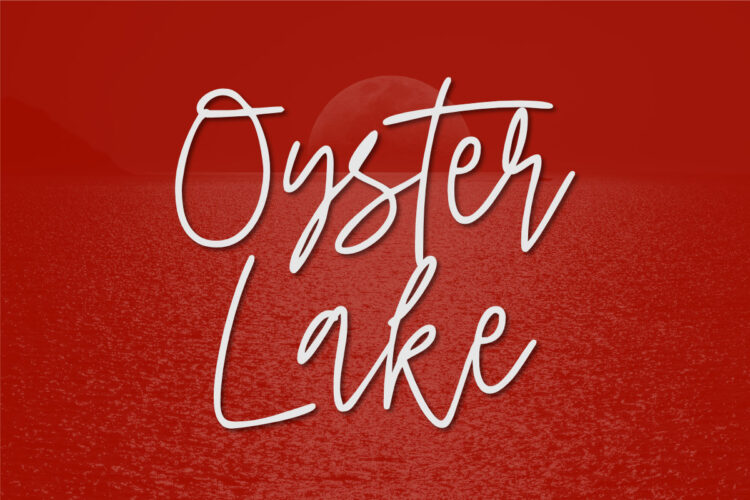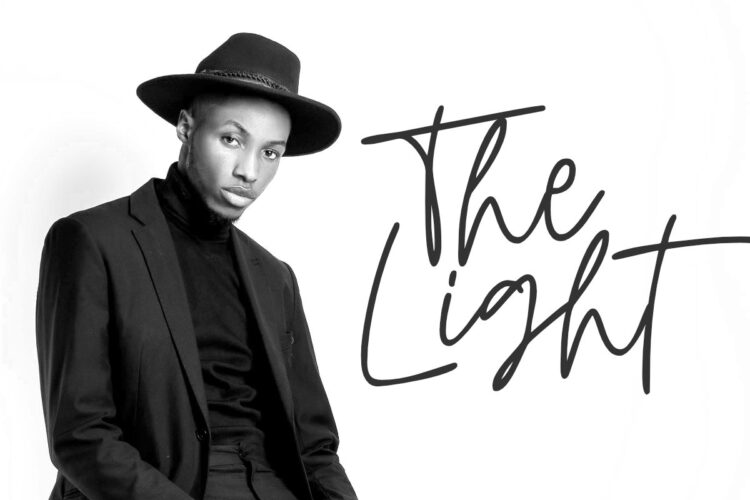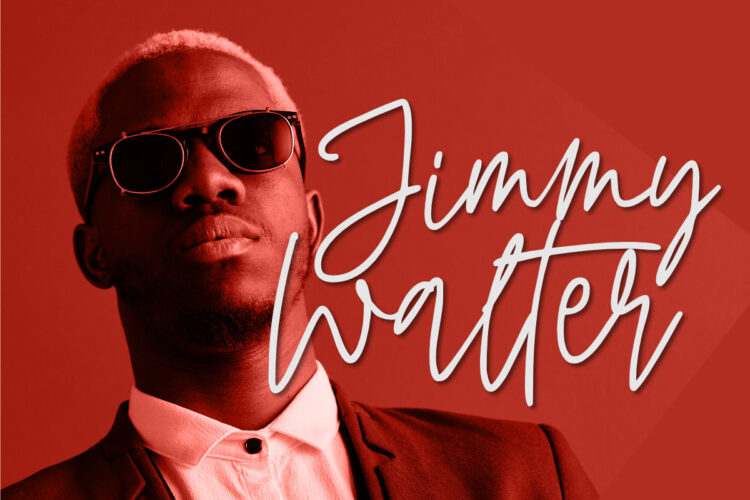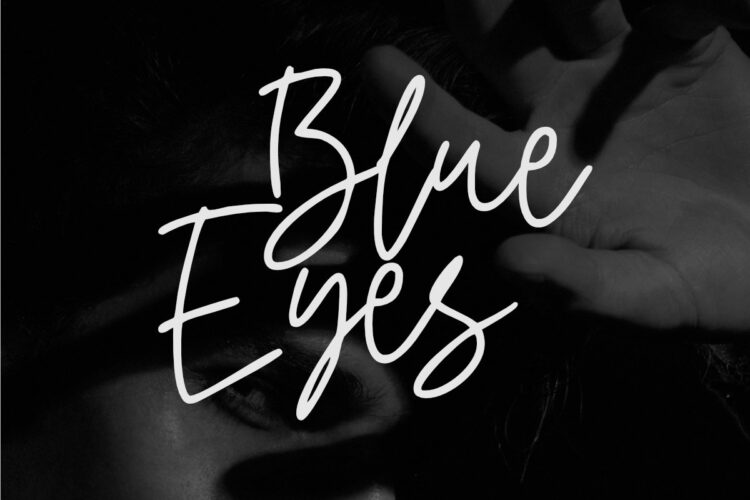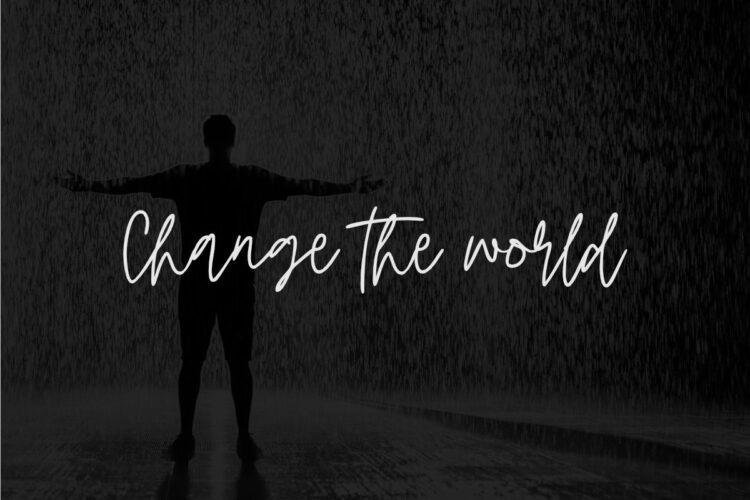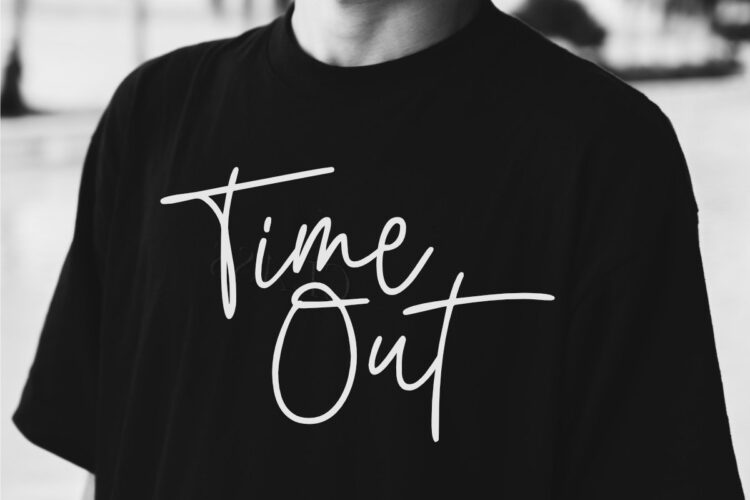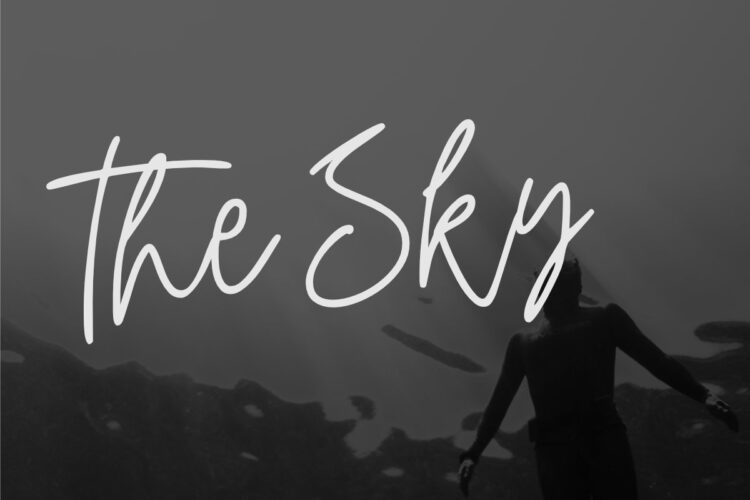
It’s never been easier to make your text look beautiful! Whether you’re designing a new logo, title, or want to spice up your social media post, Oyster Lake Script is the perfect font. Easy to read and quick to download, this charming monoline script will add a touch of elegance to any project.